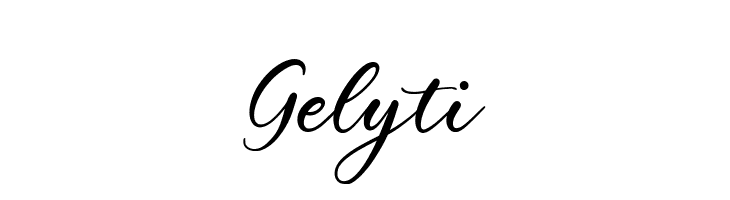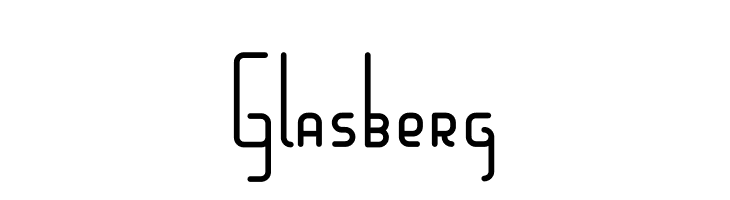
A modern, geometric font with tall, narrow characters and a sleek design.
A playful, handwritten script font with smooth, flowing characters.
A bold, expressive handwritten font with brush-like strokes.
A dynamic and flowing script font with elegant, interconnected strokes.
Bold, 3D slab serif font with strong shadow effects.
An elegant, expanded font with thin strokes and a modern, airy feel.
An elegant, flowing script font with a natural handwritten style.
A bold, left-leaning italic font with a modern, angular design.
A bold, handwritten script font with a playful and energetic style.
A dynamic and elegant script font with fluid, cursive strokes.